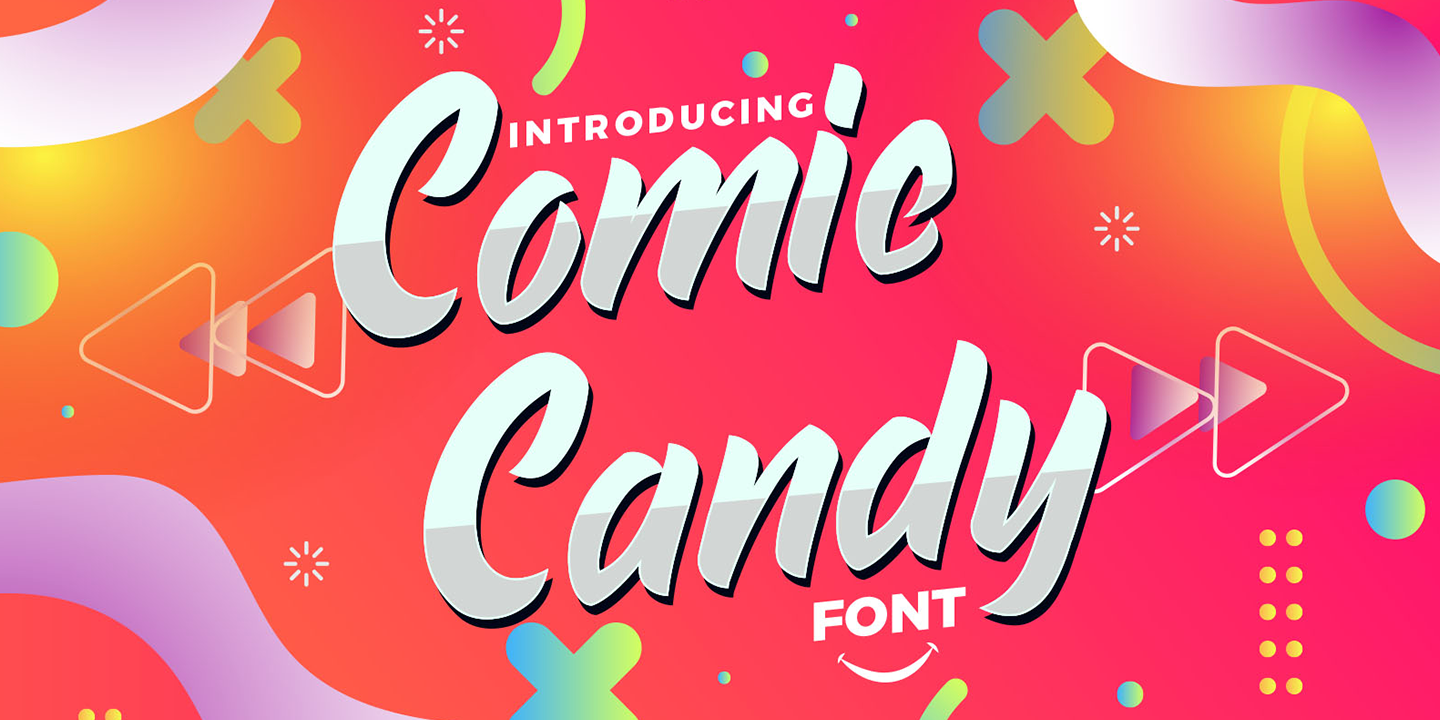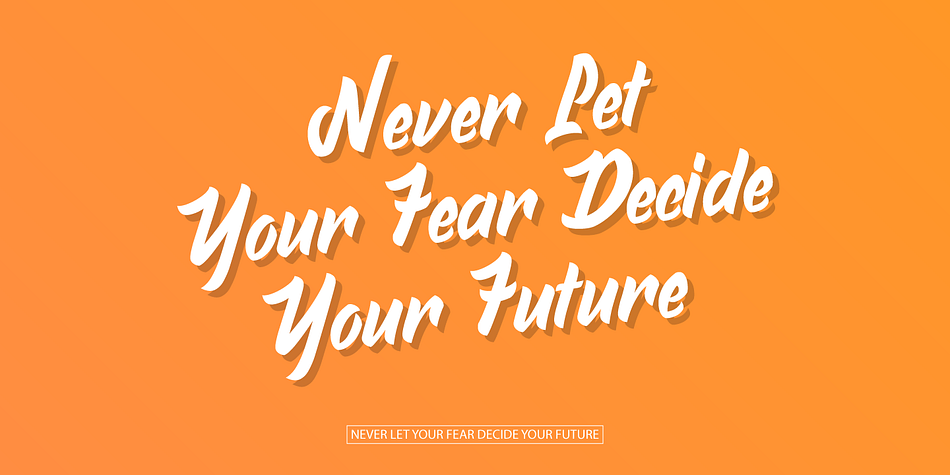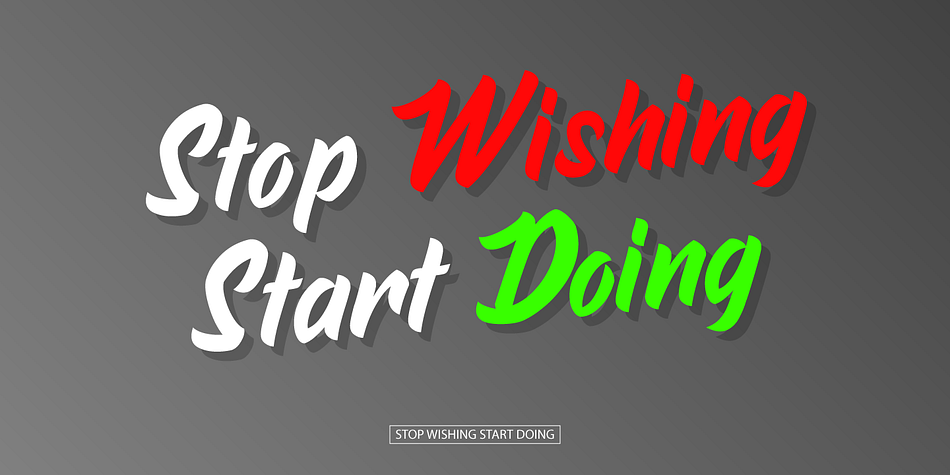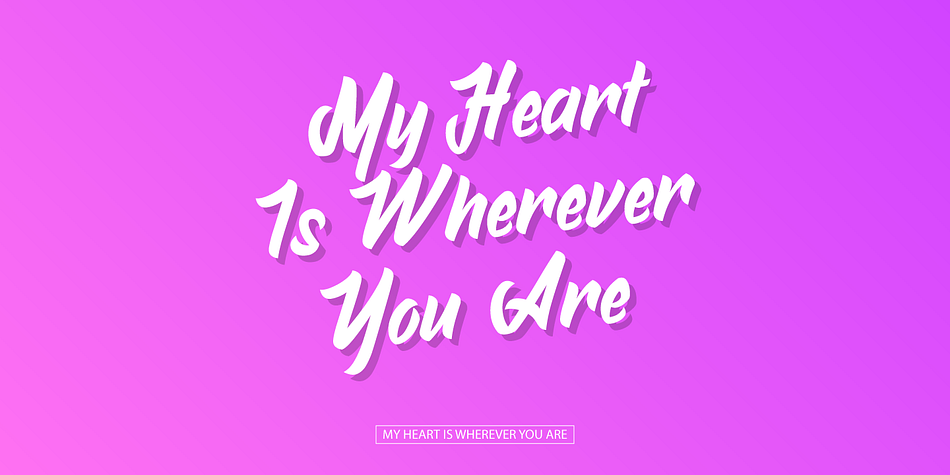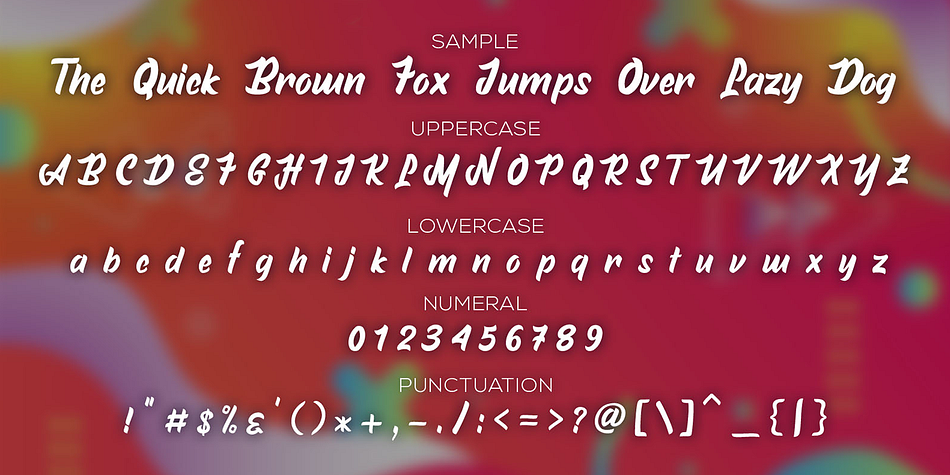
Comic Candy
Designed by Mohammed Lamjidi, Comic Candy is a brush script font family published by Beast Designer.
Comic Candy is a fun script font. It will elevate a wide range of design projects to the highest level, be it wedding designs, branding, headings, invitations, signatures, logos, labels, and much more!